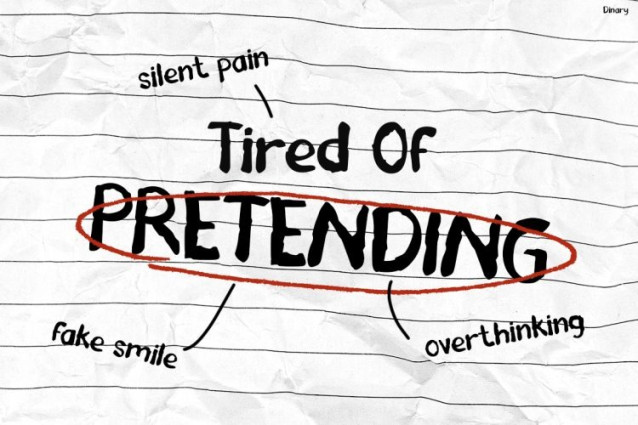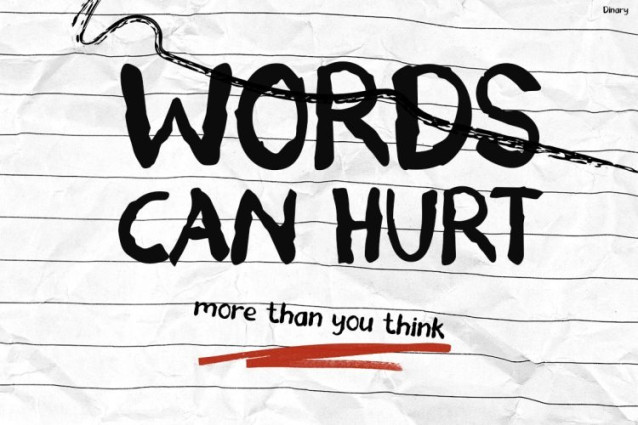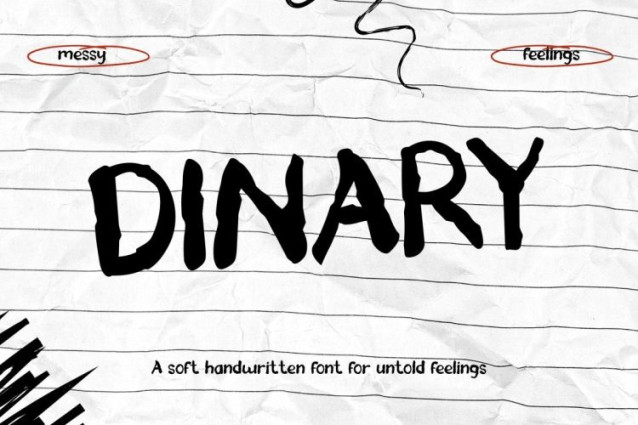
Dinary Font
Dinary Font is a bold handwritten typeface that captures raw emotion and authentic expression in every stroke. At first glance, its rough, imperfect lines and natural hand-drawn style create a deeply personal and honest feel. Moreover, the uneven shapes and sketch-like texture give it a diary-inspired aesthetic that feels real, unfiltered, and relatable. Because of this unique character, the font stands out as expressive rather than polished. In addition, its simple yet powerful form keeps the message clear while adding emotional depth. As a result, DINARY is perfect for designs that aim to connect, express, and tell meaningful stories.
Kids Font DINARY is a handwritten display font designed to reflect genuine thoughts and emotions. Not only does it feature a raw and sketchy texture, but it also brings a human touch that feels intimate and expressive. Furthermore, the casual writing style makes every sentence look like a personal note or journal entry. Therefore, whether you are creating posters, quotes, or storytelling visuals, DINARY adds honesty and personality. Ultimately, it transforms text into emotional expressions that feel real and impactful.